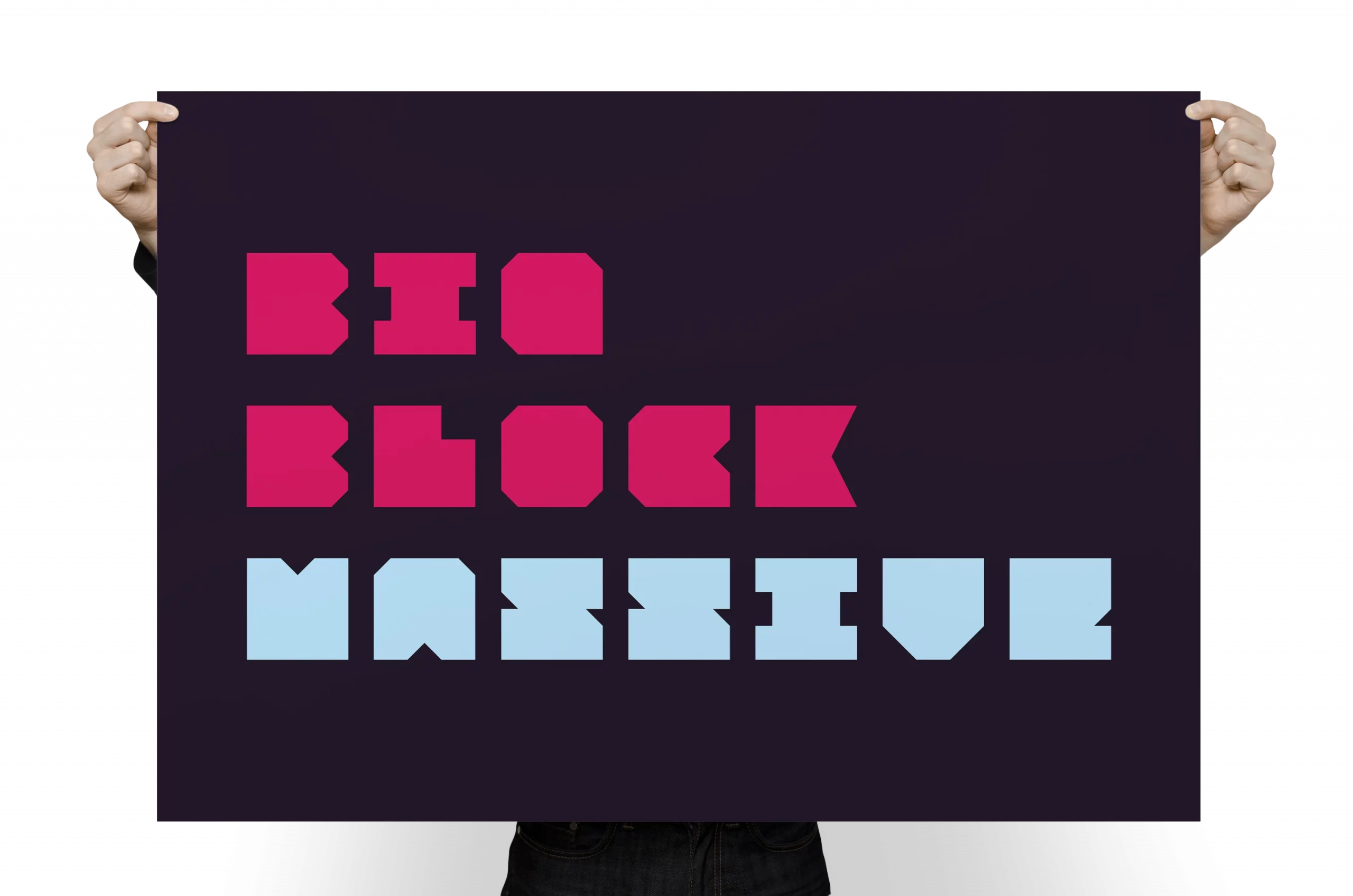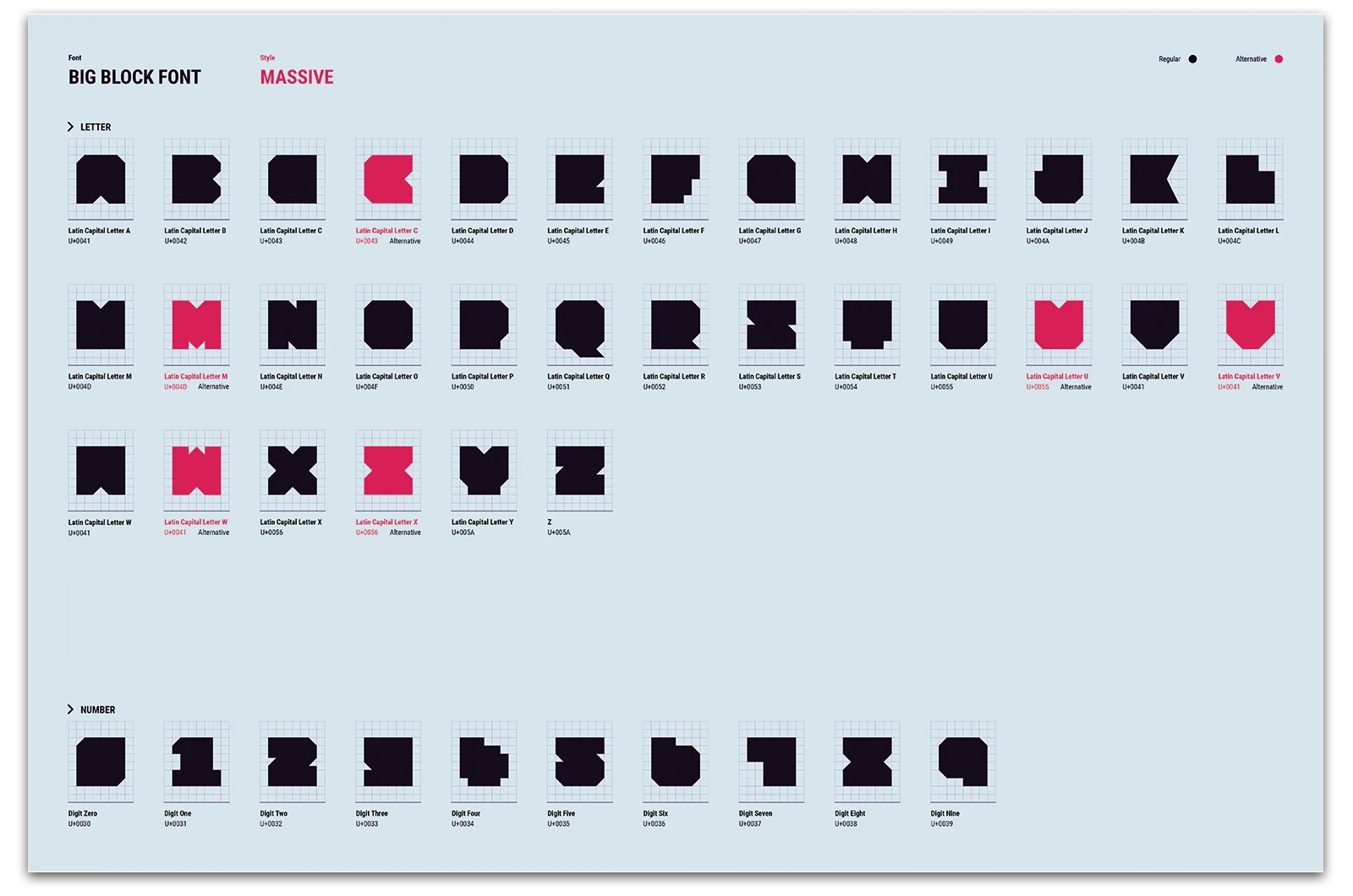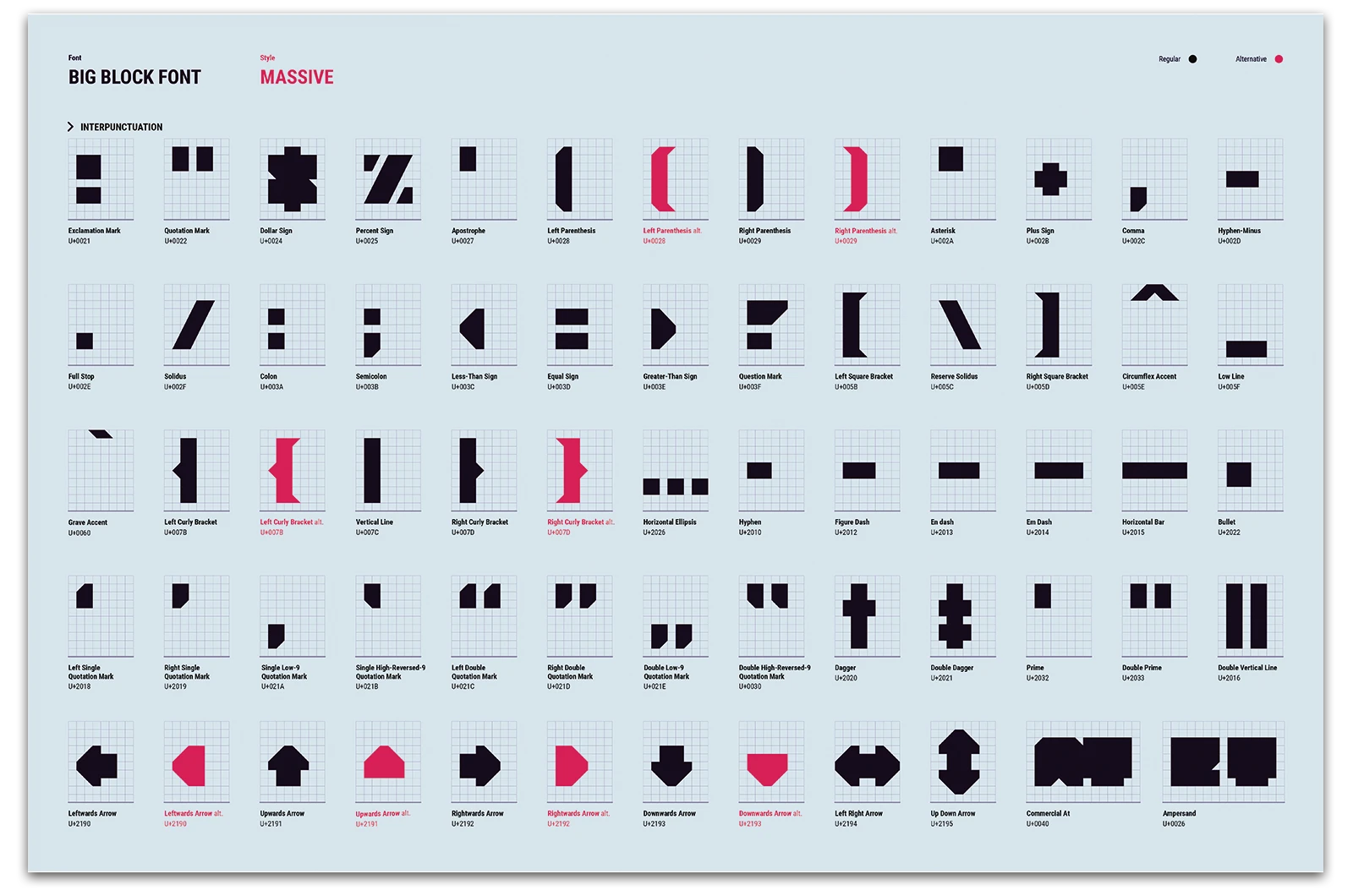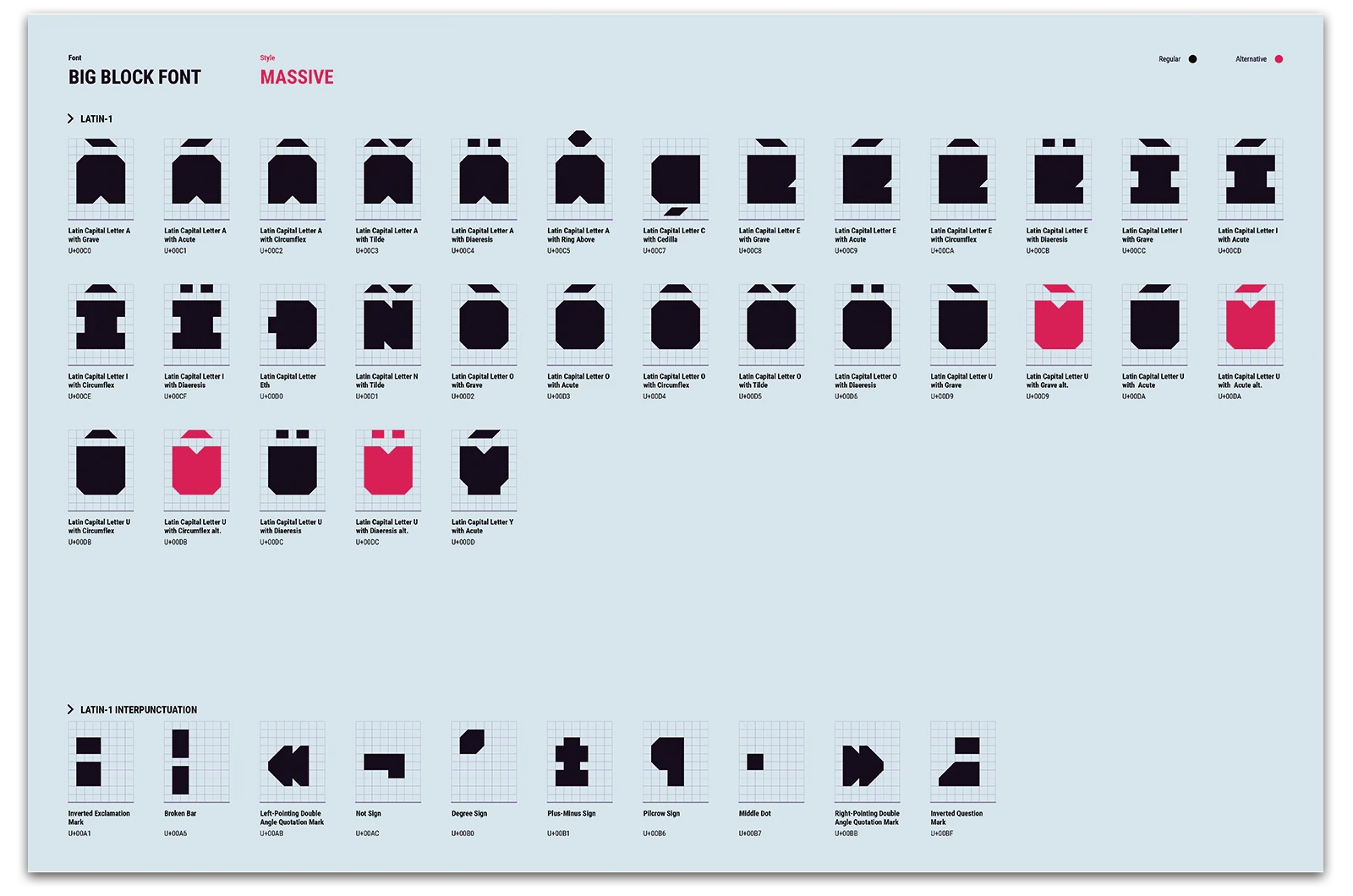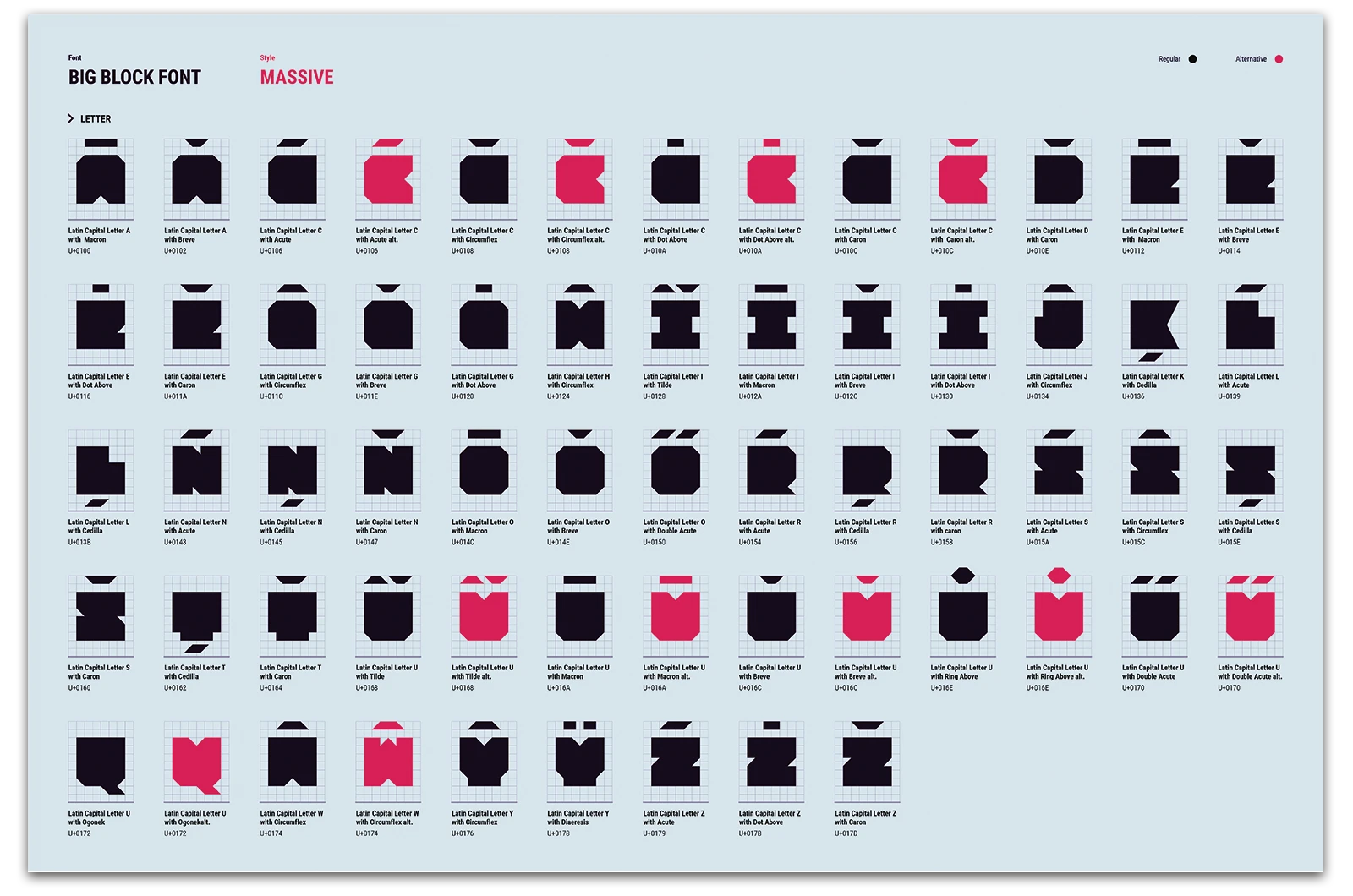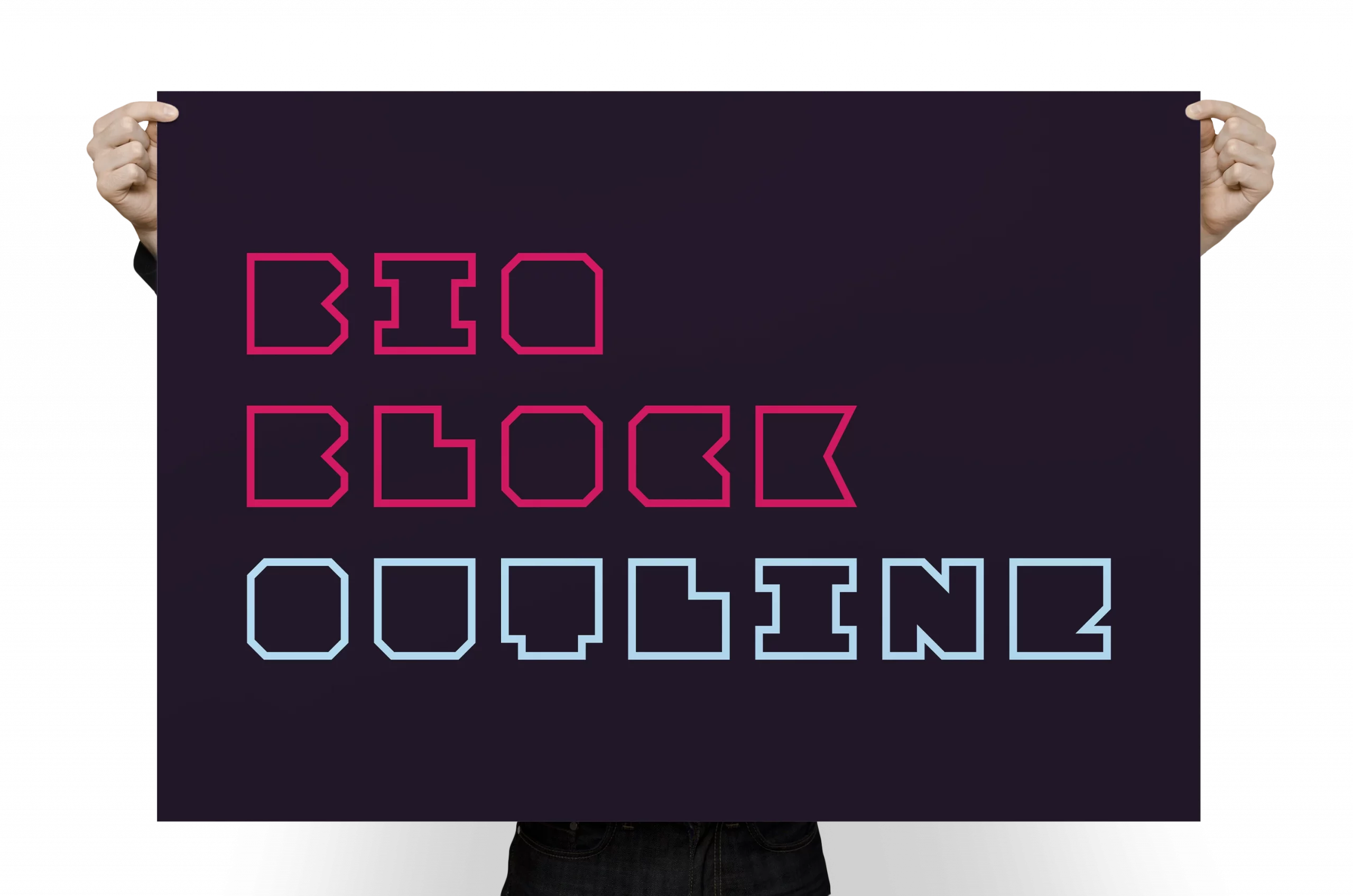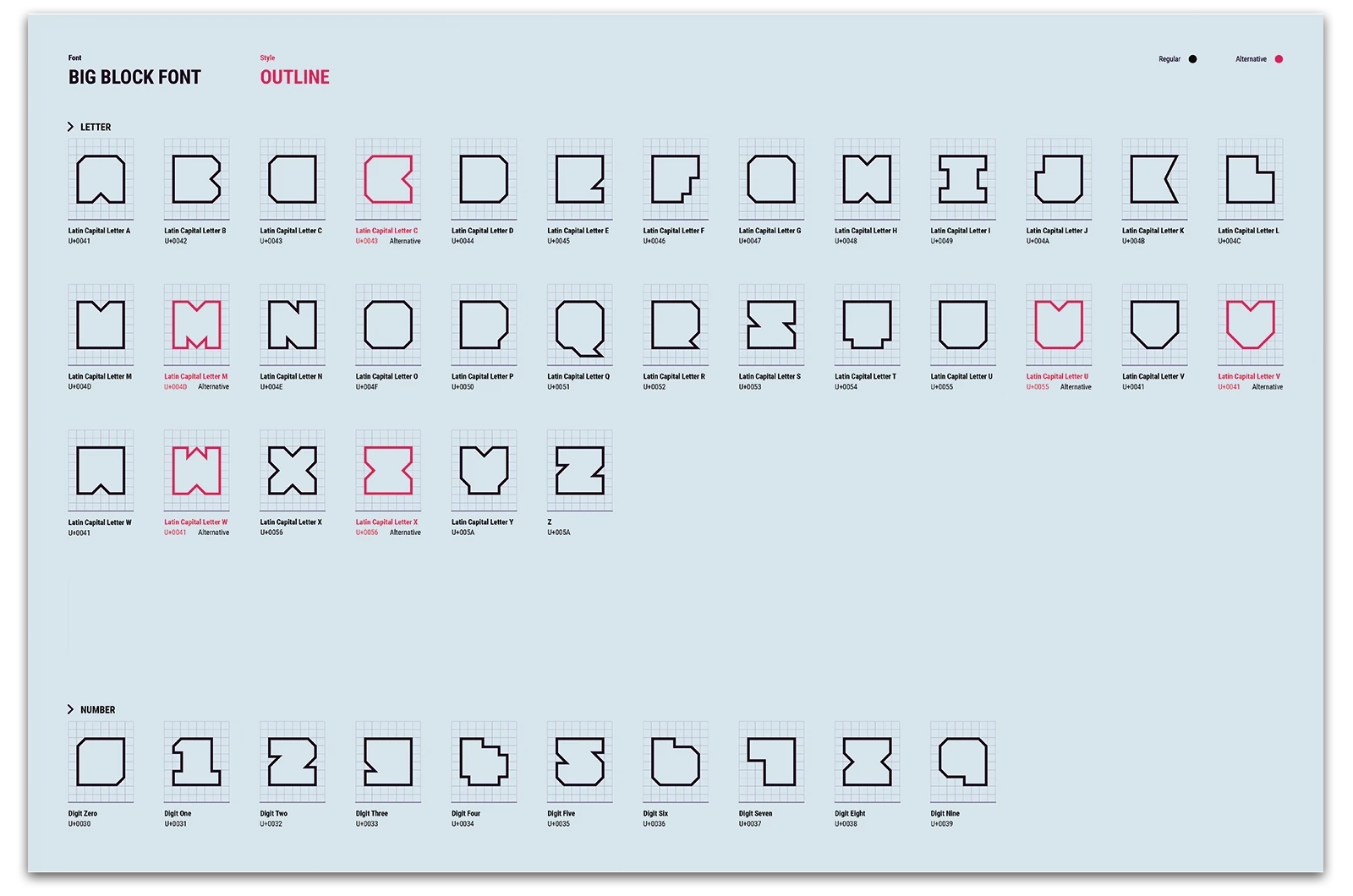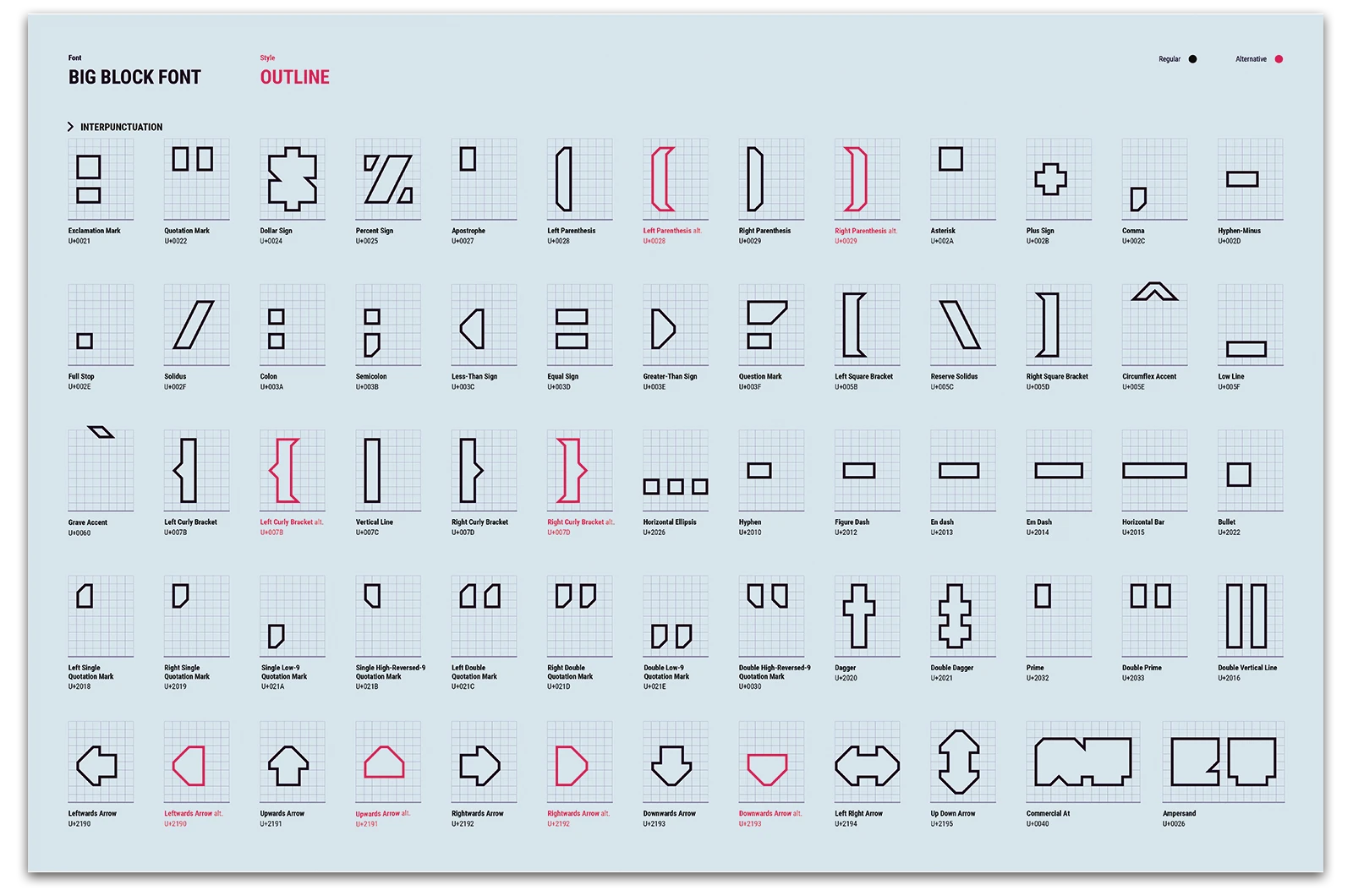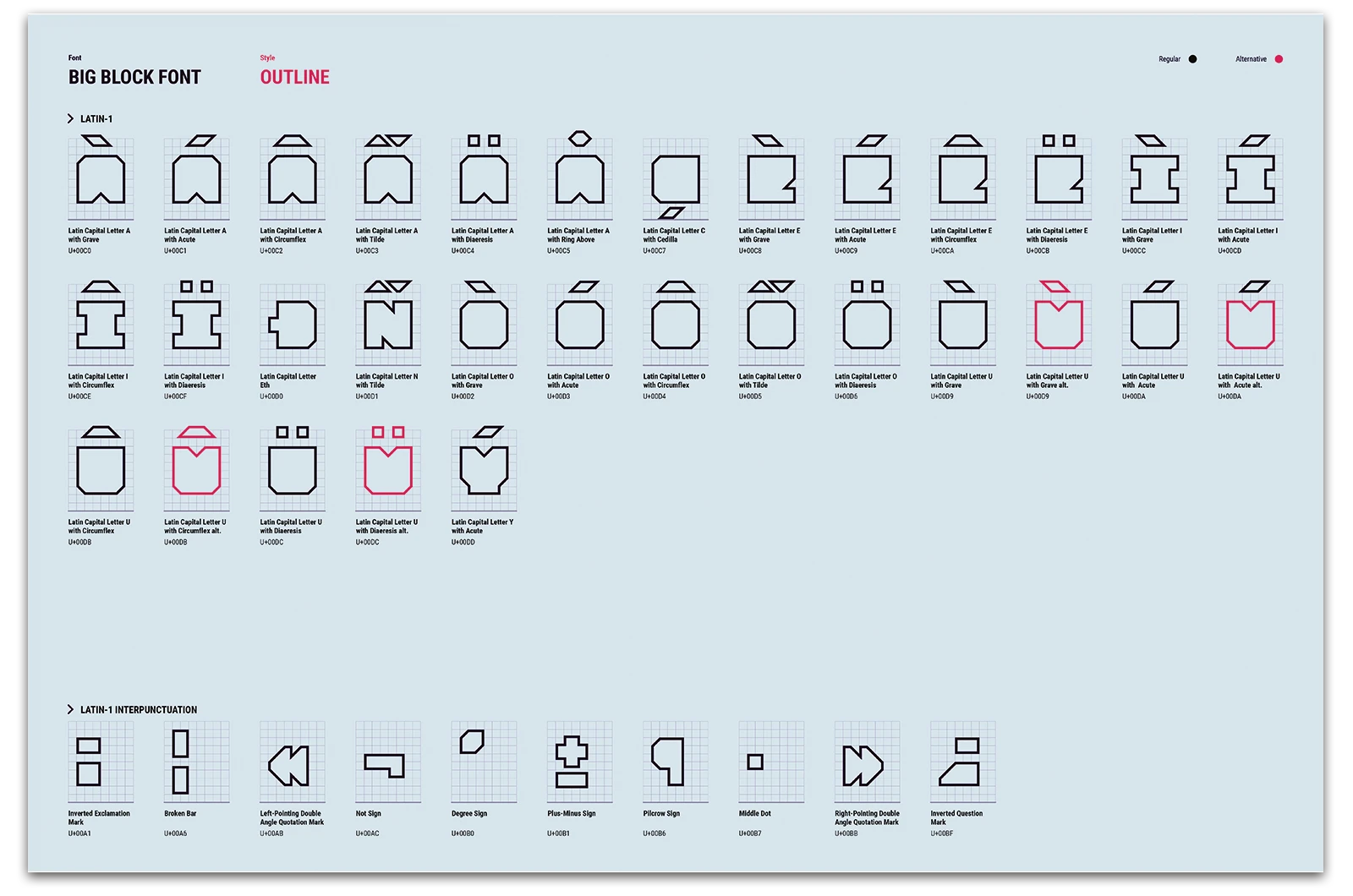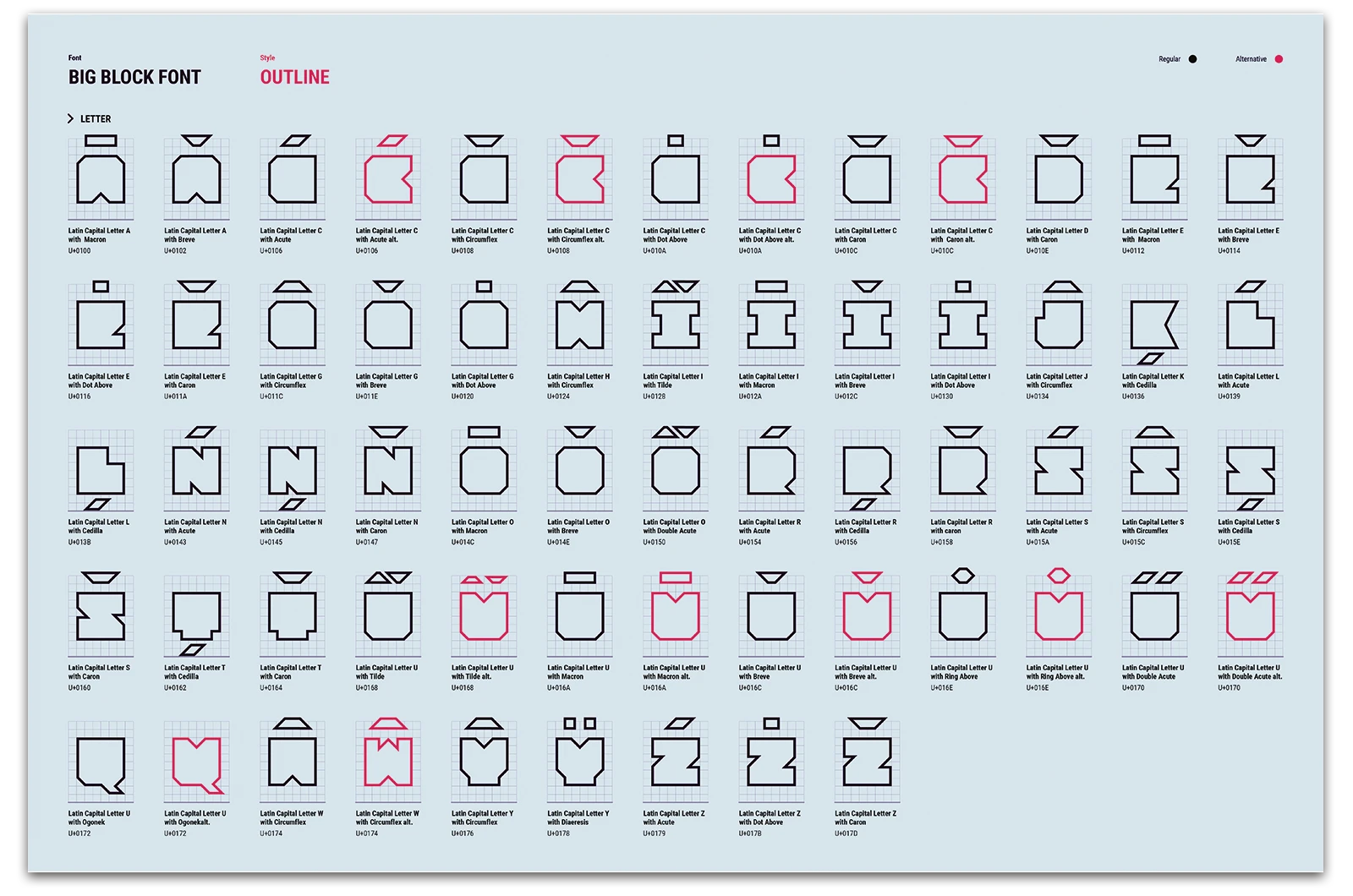
While working on a corporate design project, the idea for this font came about as a side project. I developed a massive, geometric display font in three weights (massive, outline and polygon). In addition to the Latin letters and numbers, this font contains an extended punctuation and various Latin diacritics.
Durch die Arbeit an einem Corporatedesign-Projekt ist als Nebenprojekt die Idee zu dieser Schrift entstanden. Dabei habe ich eine massive, geometrische Displayschrift in drei Schnitten (Massive, Outline und Polygon) entwickelt. Zusätzlich zu den lateinischen Buchstaben und Zahlen enthält diese Schrift eine erweiterte Punktuation sowie diverse lateinische Diakritzeichen.